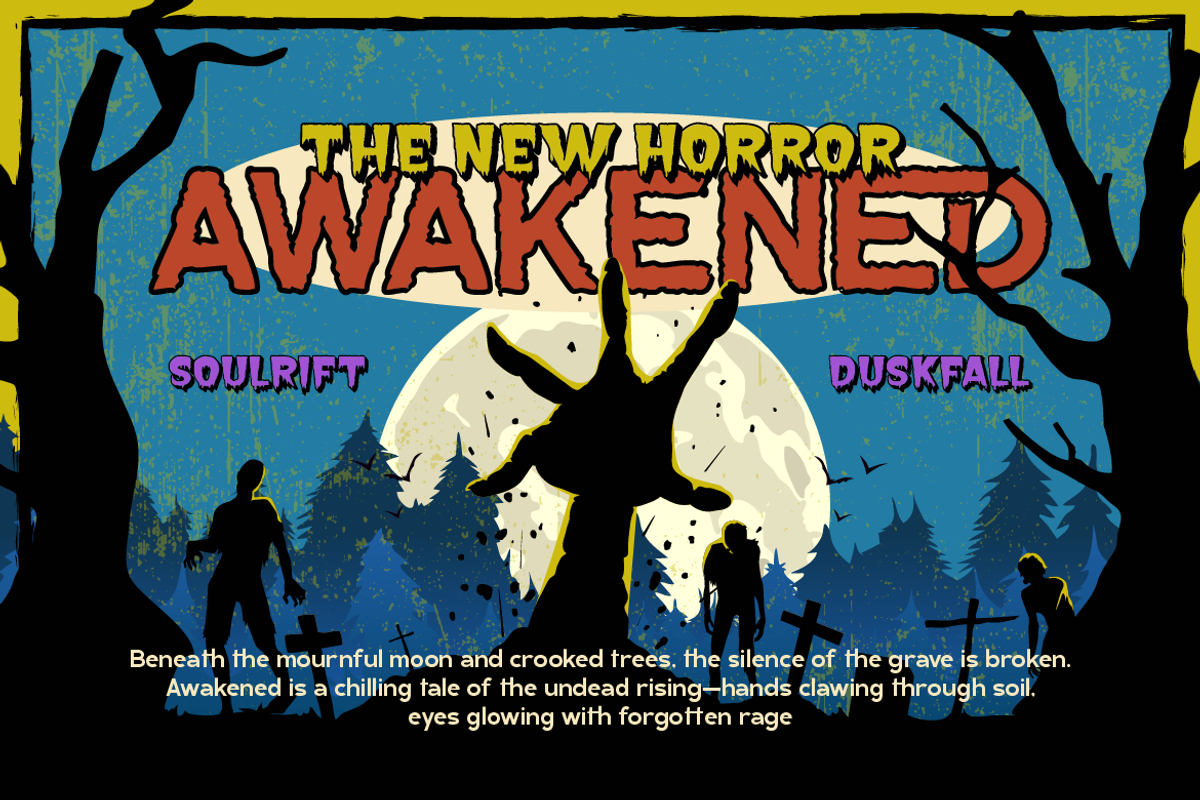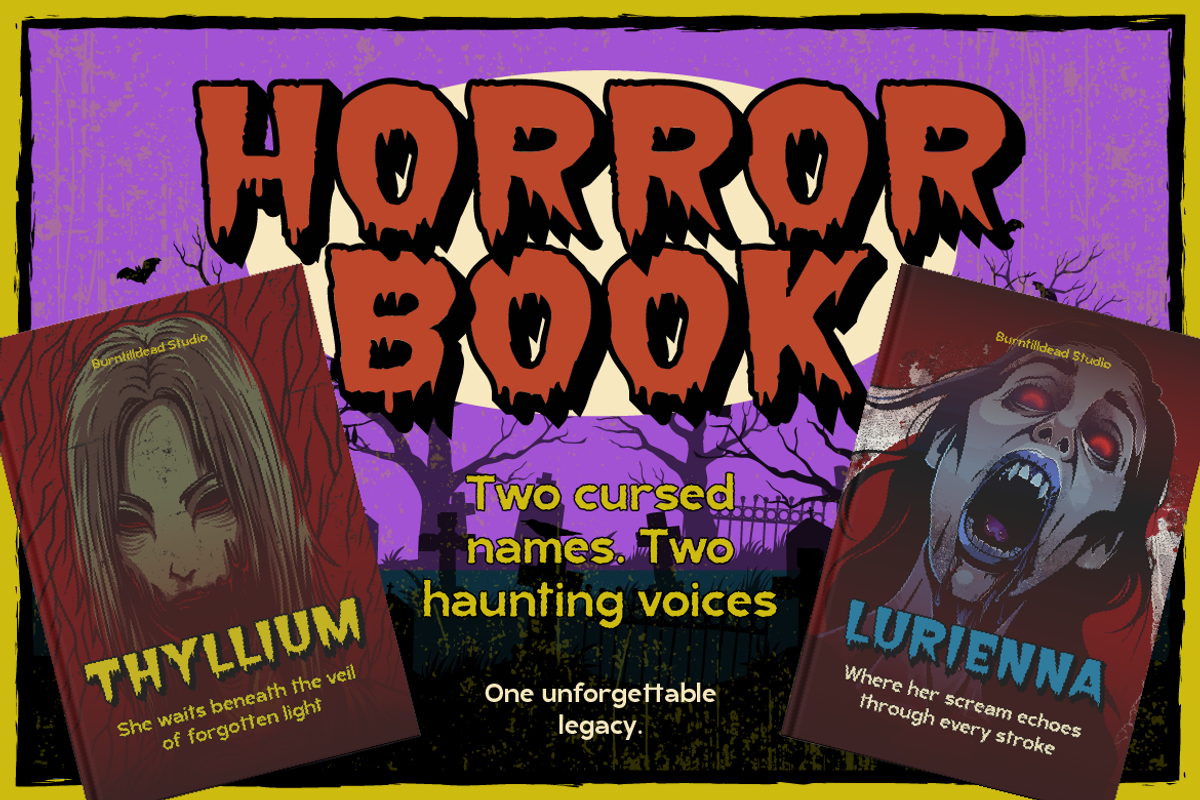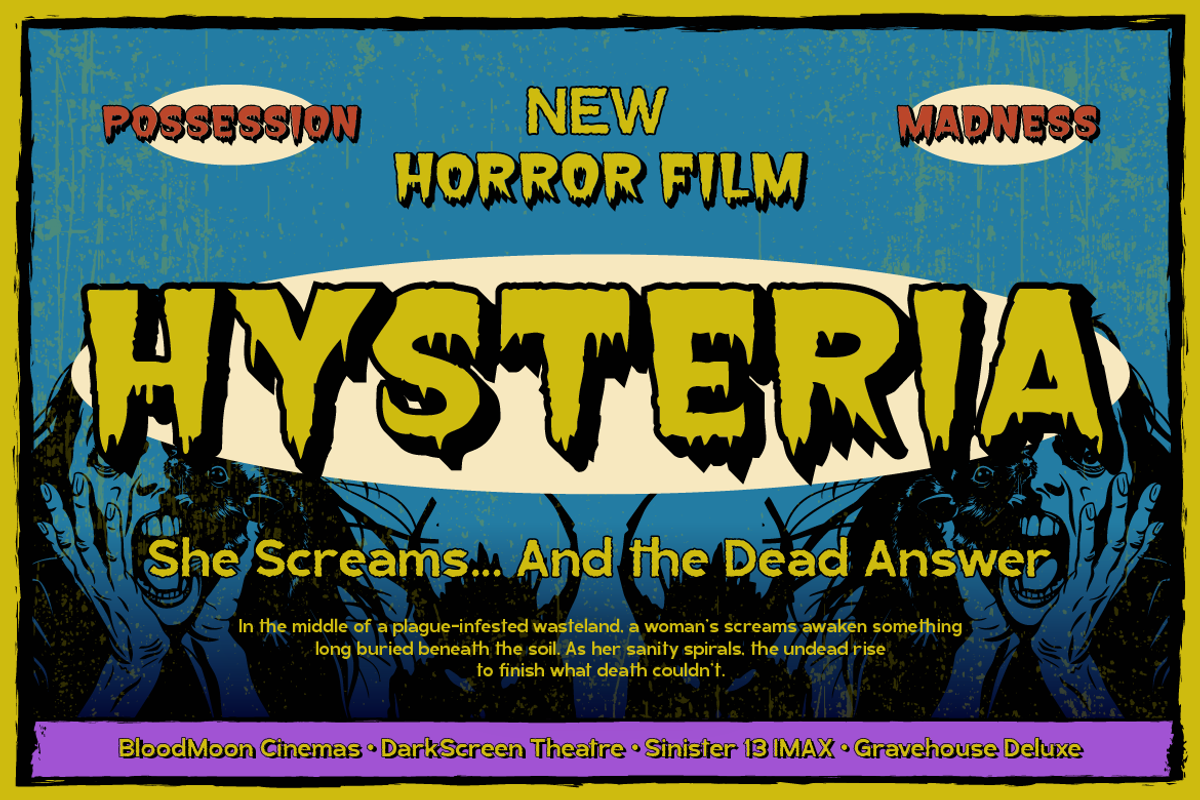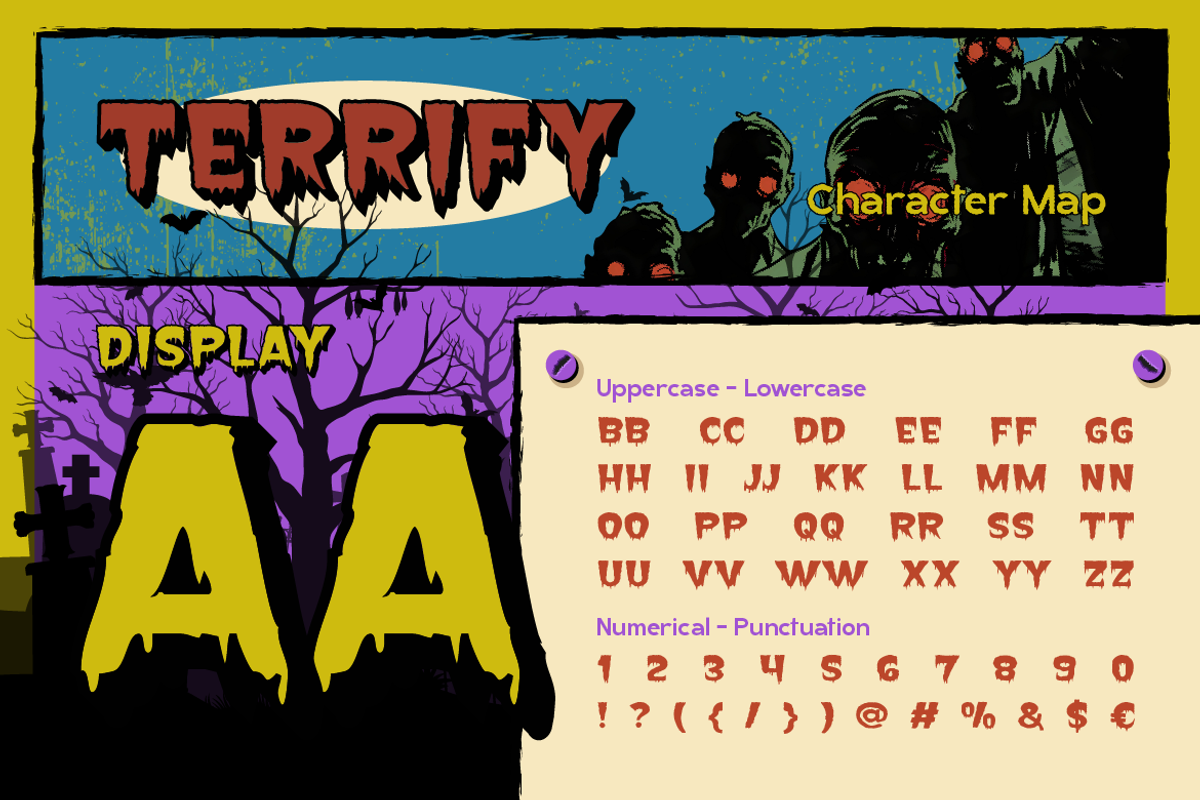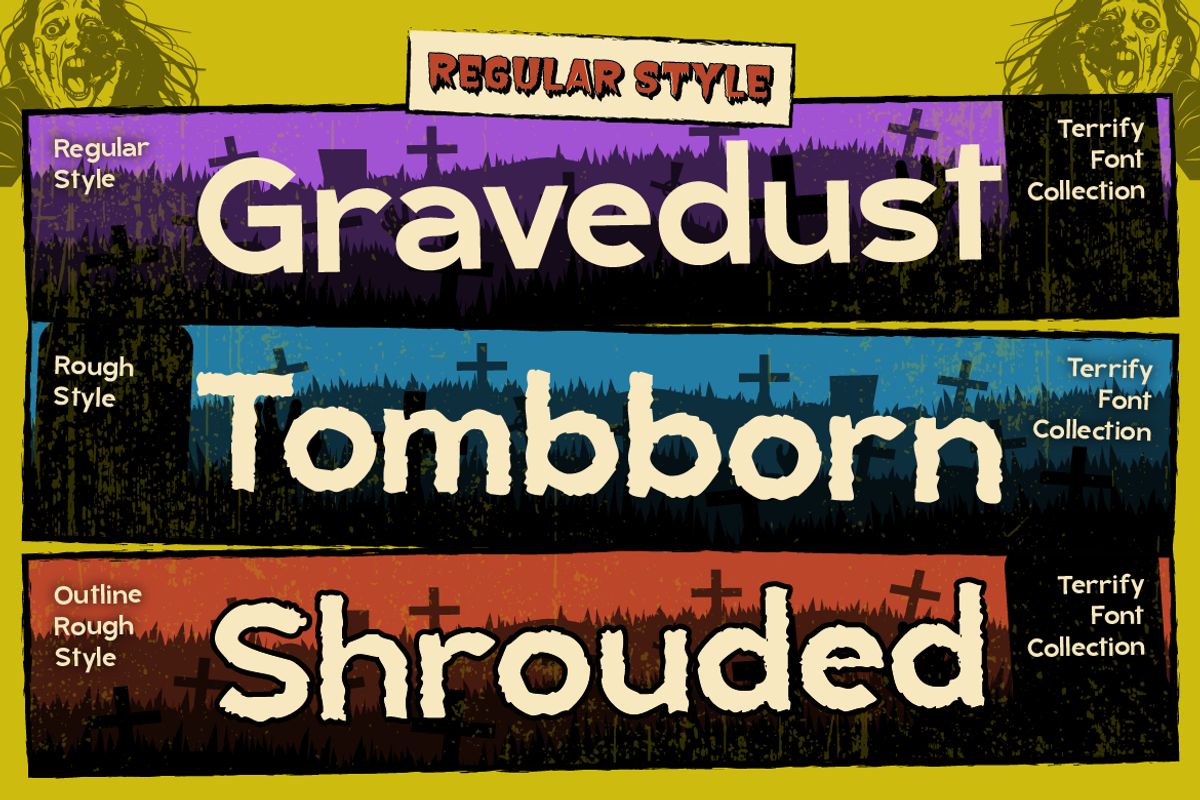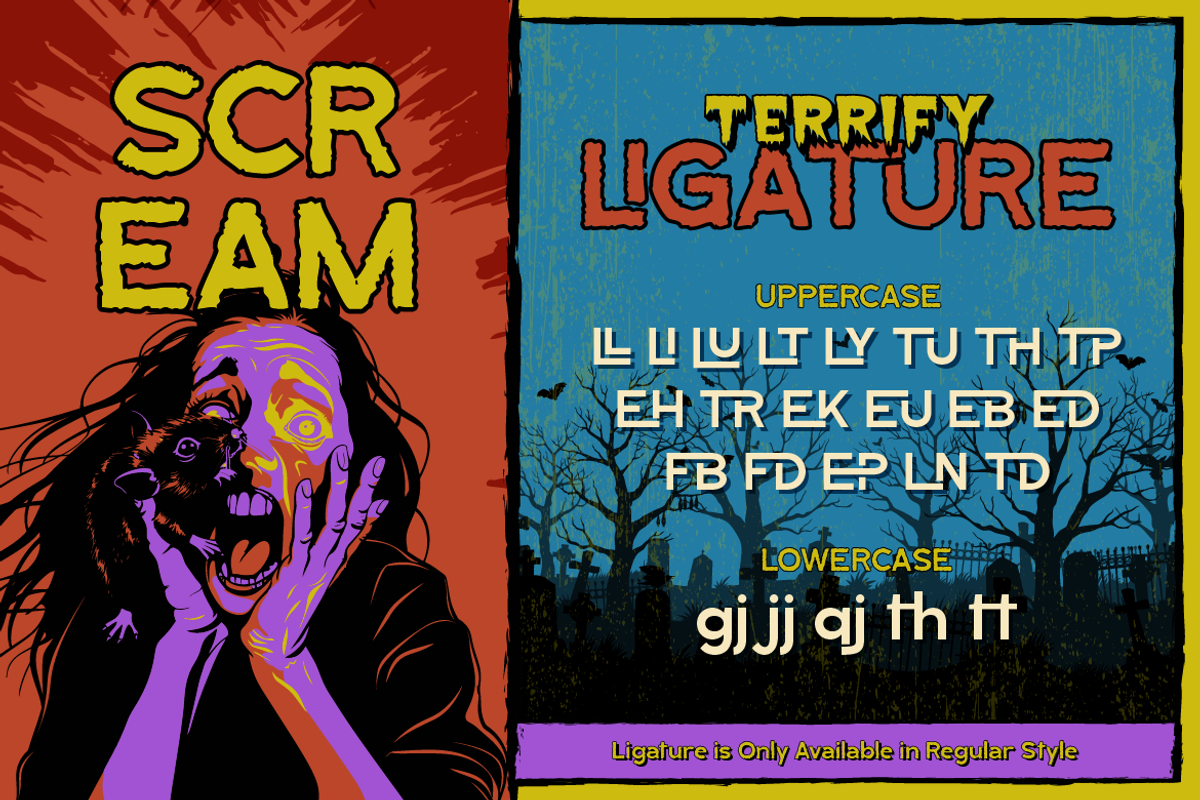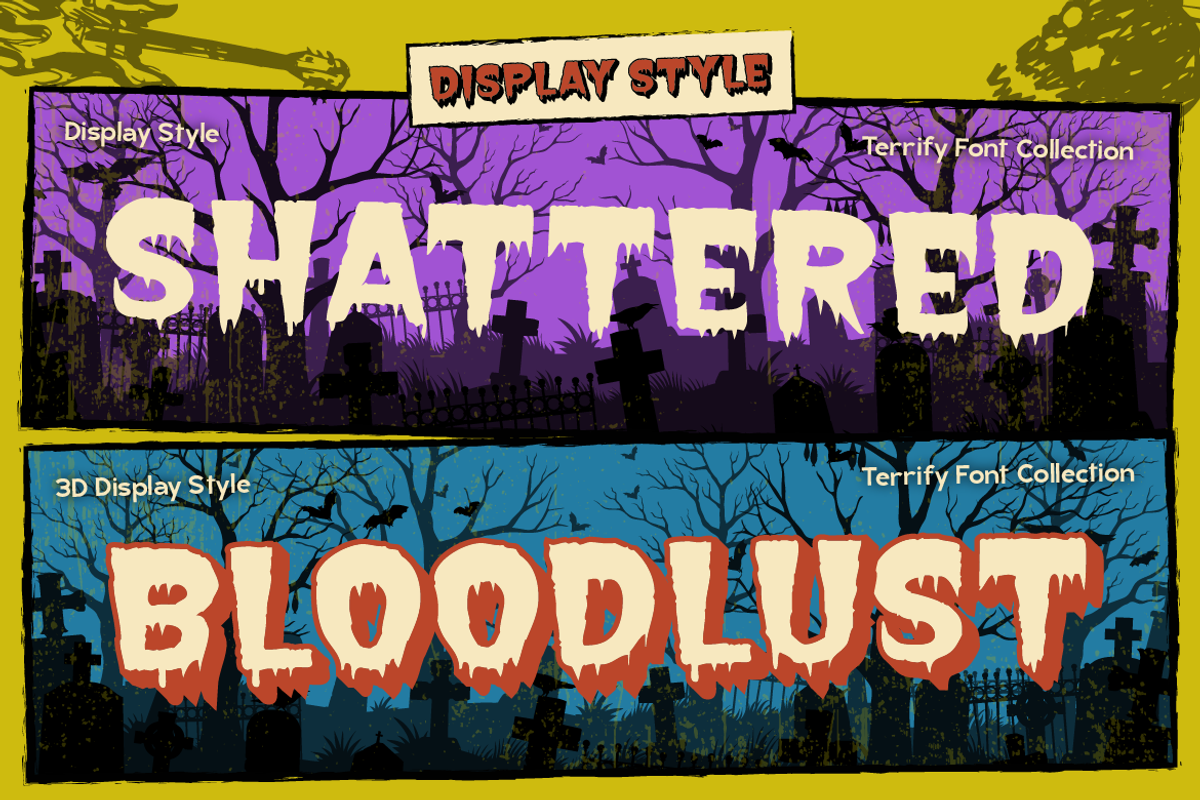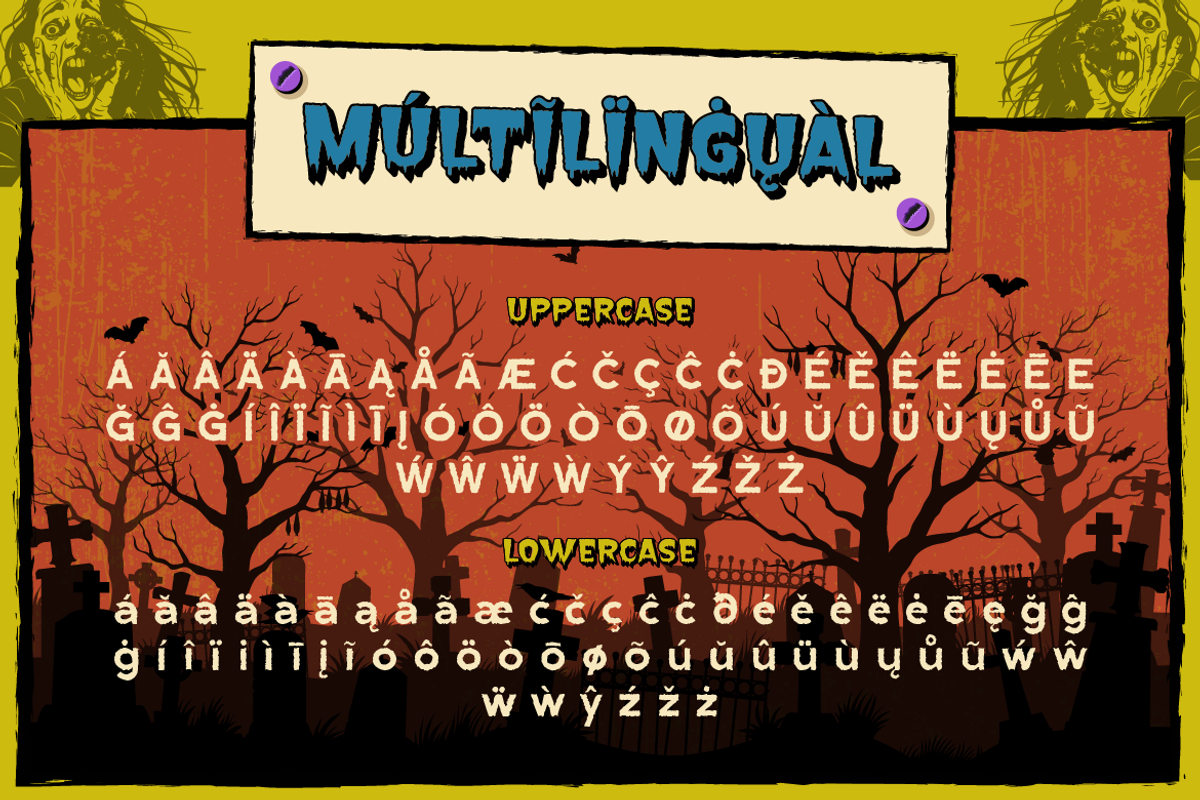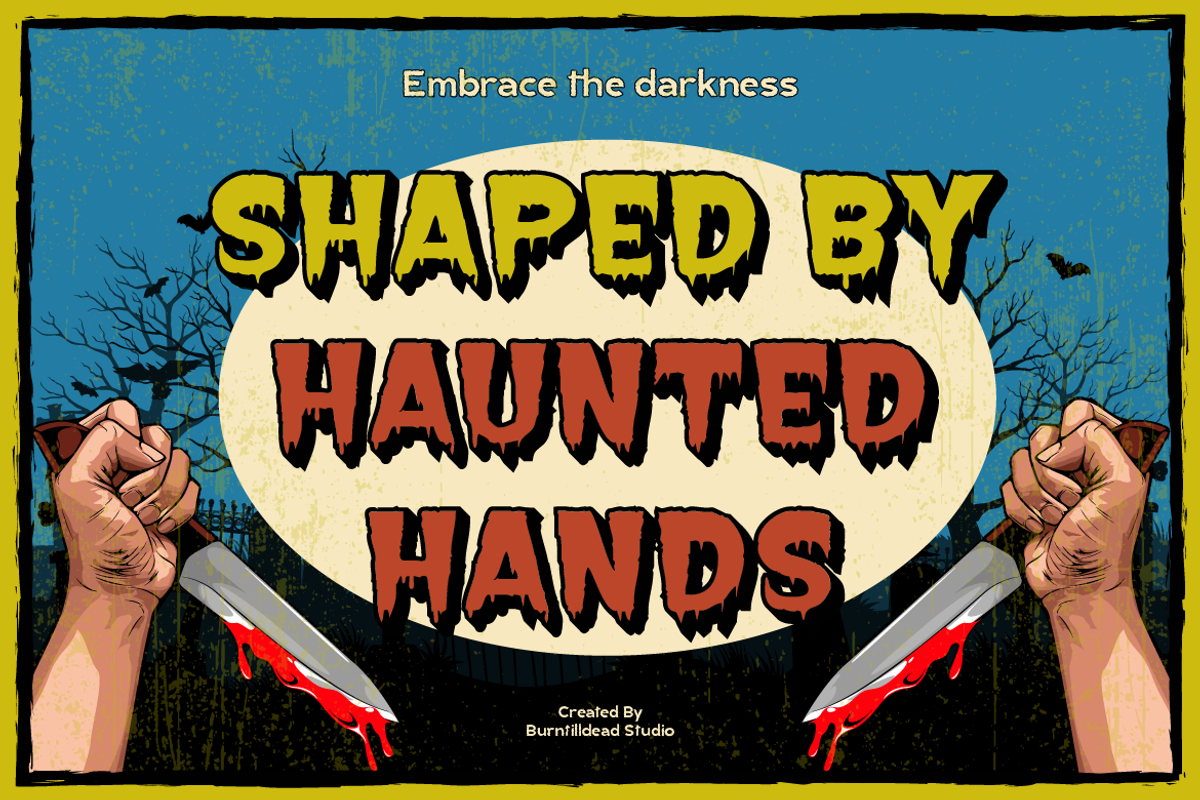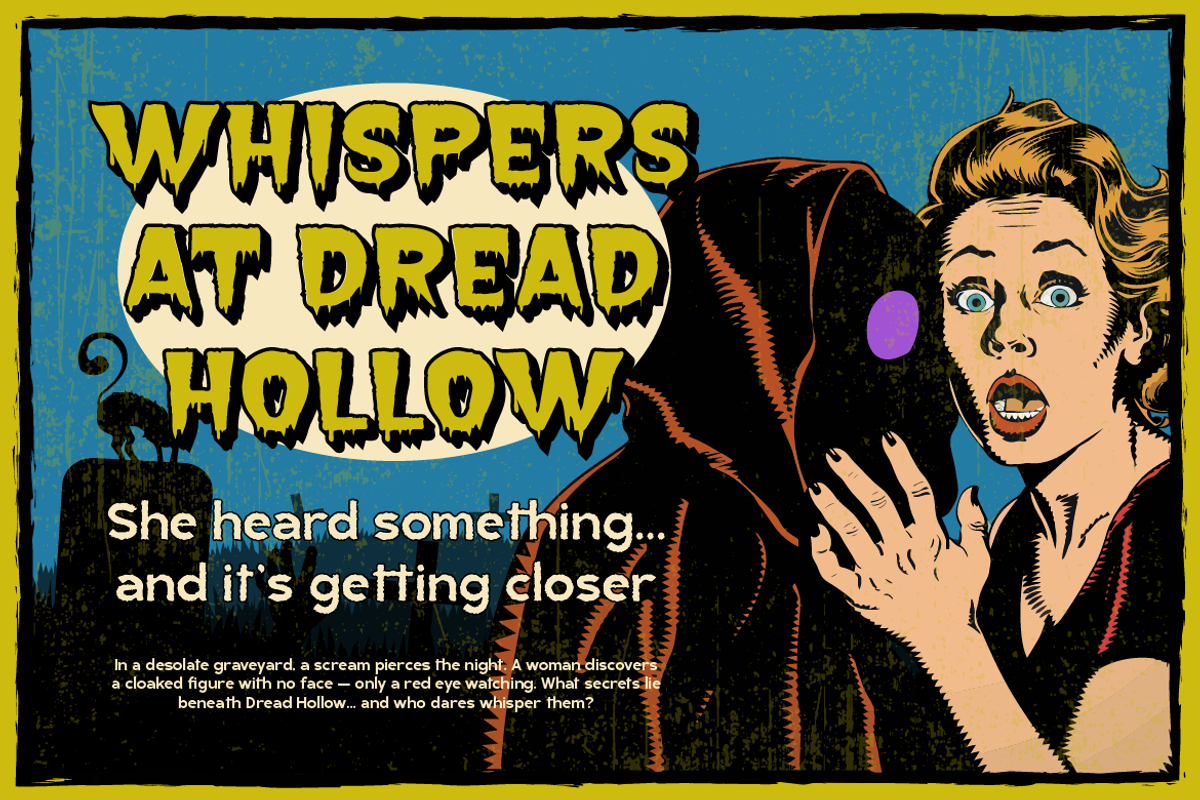
Terrify
Proudly present, Terrify — a horror-themed font designed to bring eerie, mysterious, and gothic vibes into your designs. Terrify comes with 2 main styles: Display and Regular. The Regular style includes 3 variations: Regular, Rough, and Outline Rough, while the Display style includes Display and 3D Display. With cracked textures and a bloody feel, Terrify delivers a theatrical and spine-chilling look — perfect for horror movie titles, Halloween invitations, creepy book covers, dark-themed merchandise, mystery branding, or even gothic/metal band logos. Think tombstone engravings, old horror posters, and vintage thriller vibes all in one font.
A - Z set (Uppercase & Lowercase)
Number
Terrify Characters Map